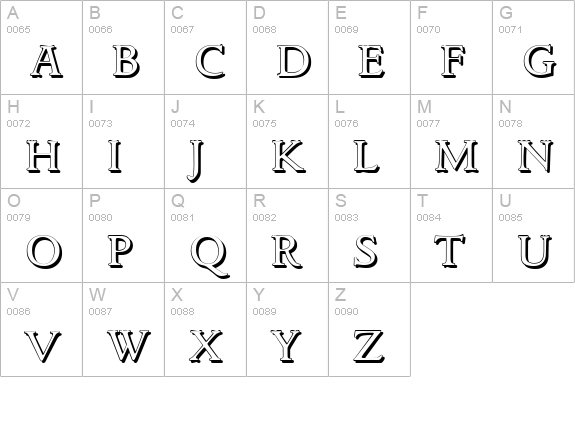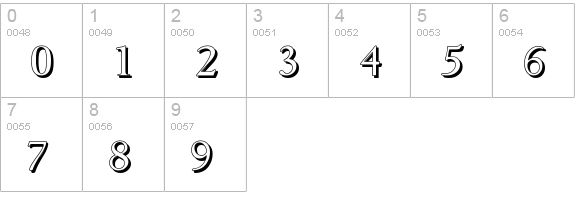
GouditaShadow-Regular is the standard, neutral variant in the GouditaShadow typeface family \xE2\x80\x94 well suited to general body text, paragraphs, and standard typographic work.
GouditaShadow-Regular font is a stunning typeface that exudes elegance and sophistication. With its unique shadow effect, this font is perfect for adding a touch of drama to your designs. The sleek lines and stylish curves of GouditaShadow-Regular make it a versatile choice for a wide range of projects, from branding to invitations. What makes GouditaShadow-Regular font even more irresistible is that it is completely free to download. Yes, you heard that right! You can get your hands on this beautiful font without spending a penny. Simply head over to FontsMarket.com and start using GouditaShadow-Regular in your next creative endeavor. Don't miss out on this fabulous opportunity to elevate your design game with GouditaShadow-Regular font!